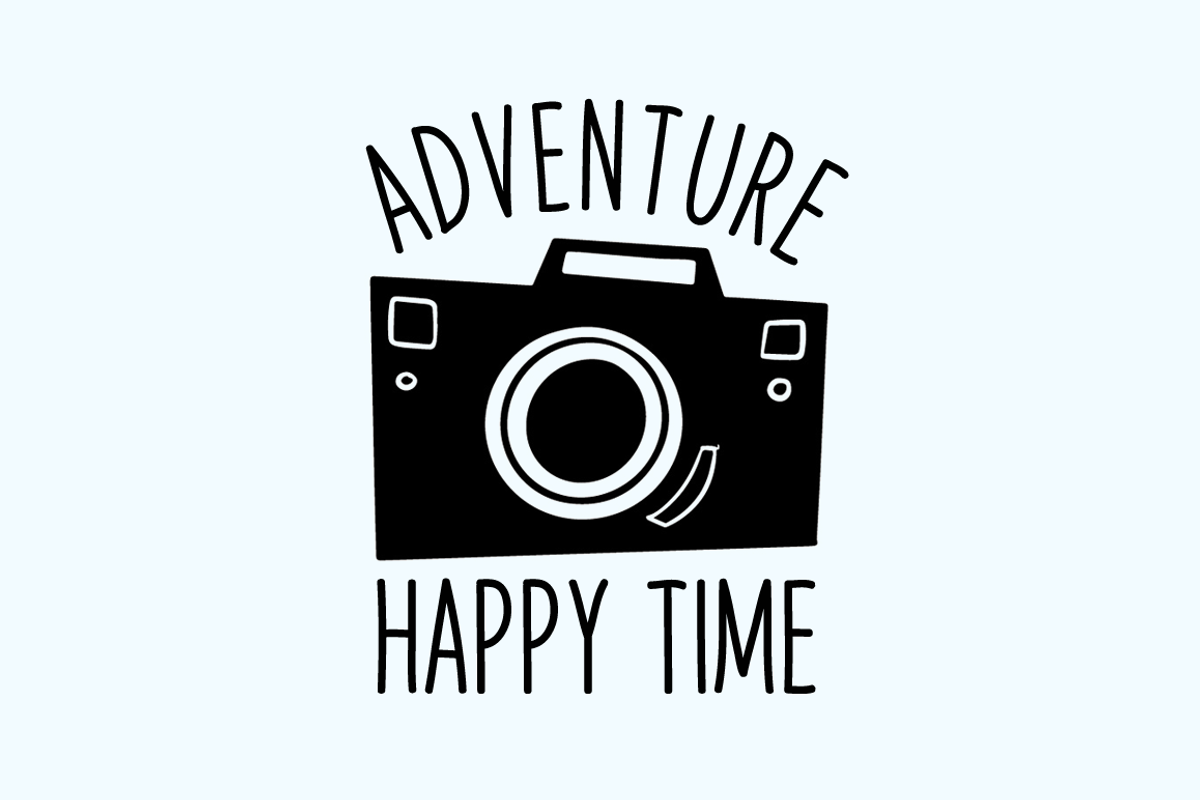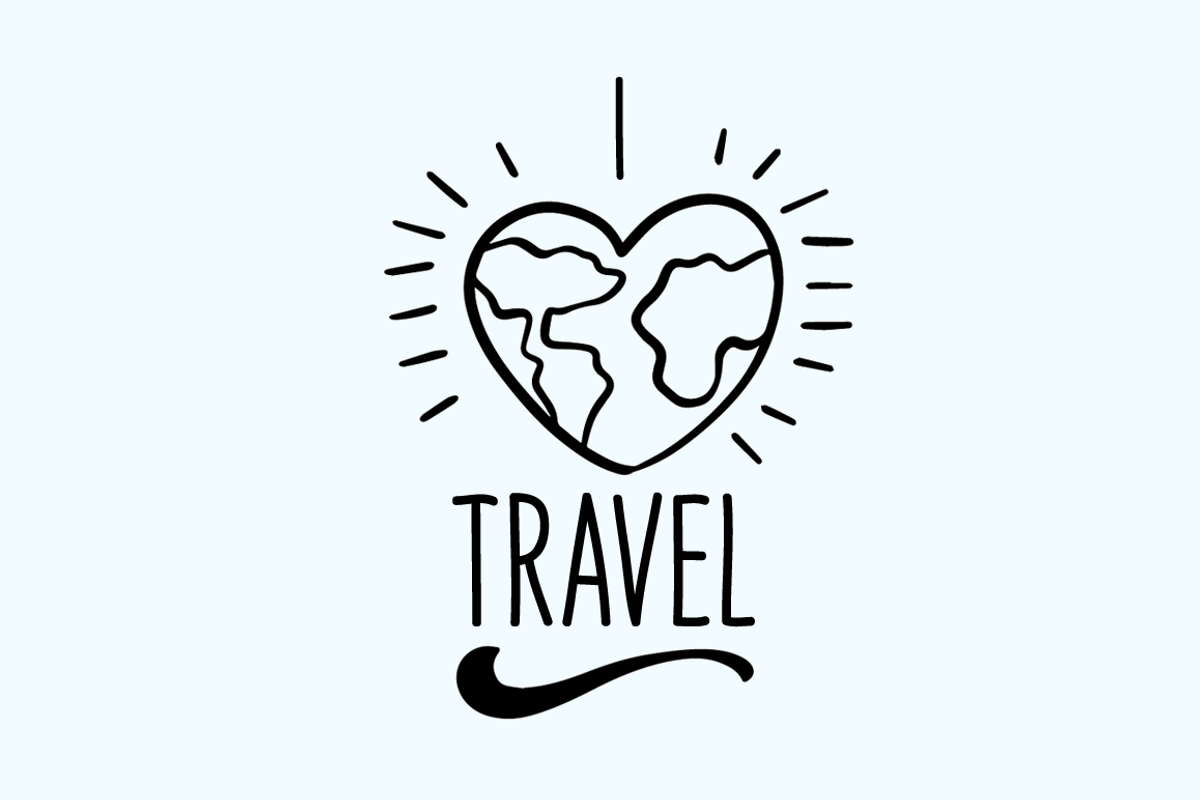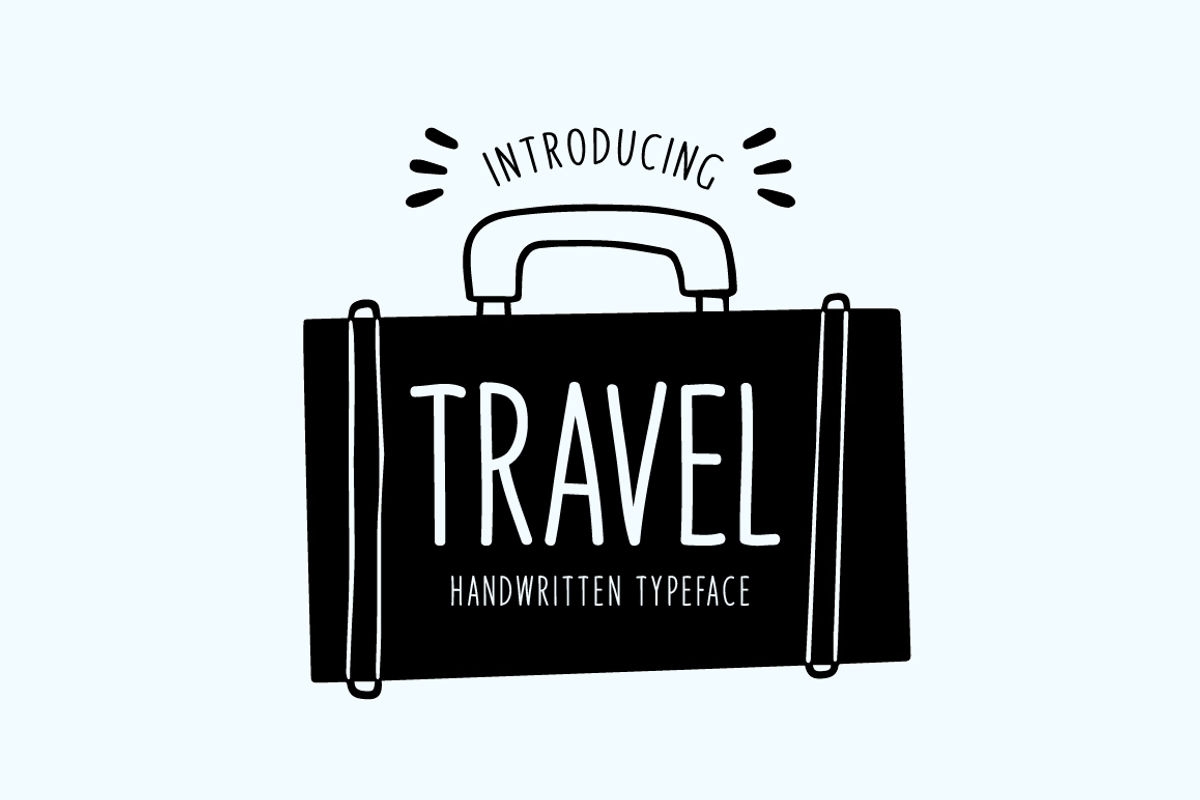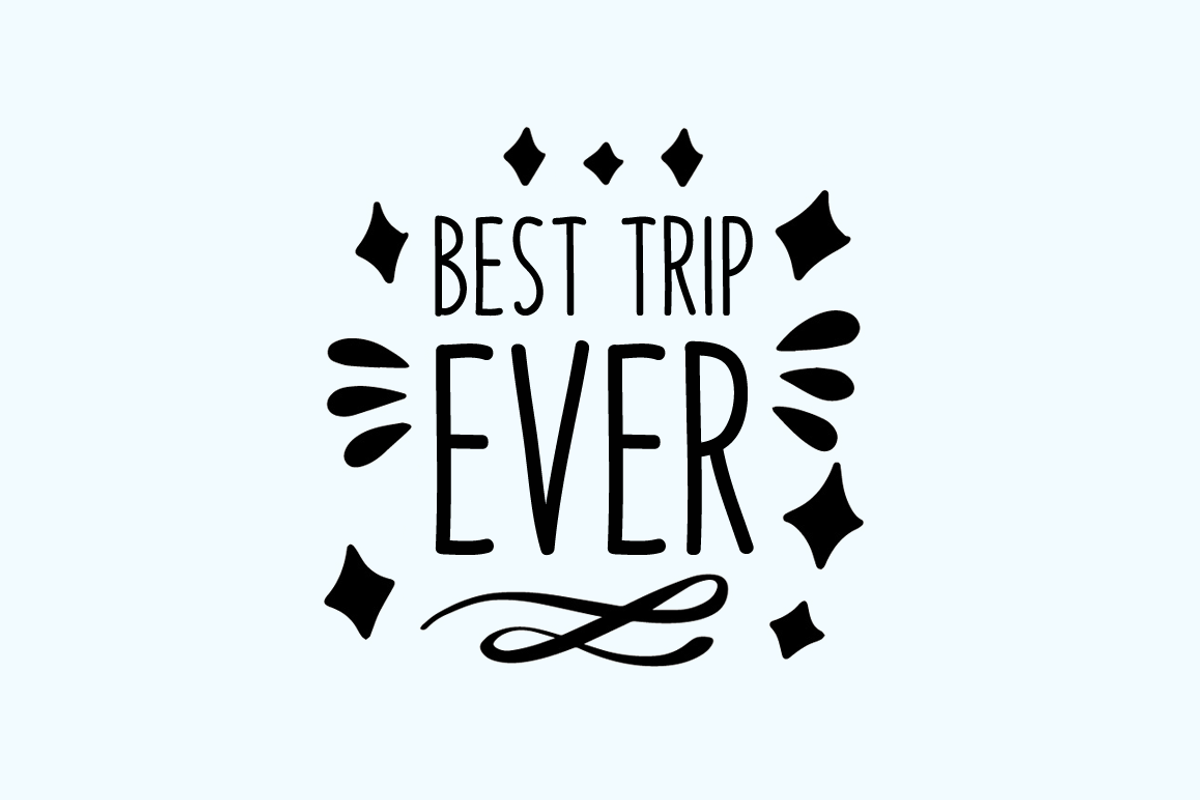
Travel Typeface
Travel is a brand new handwritten font. Travel is perfectly suited for stationery, logos, t-shirt, paper, print design, website header, photo frame, flyer, music cover, poster, image slider and much more.
Why Travel Typeface is worth a look
Travel Typeface by Seemly Fonts fits naturally into Branding, posters, packaging, typography.